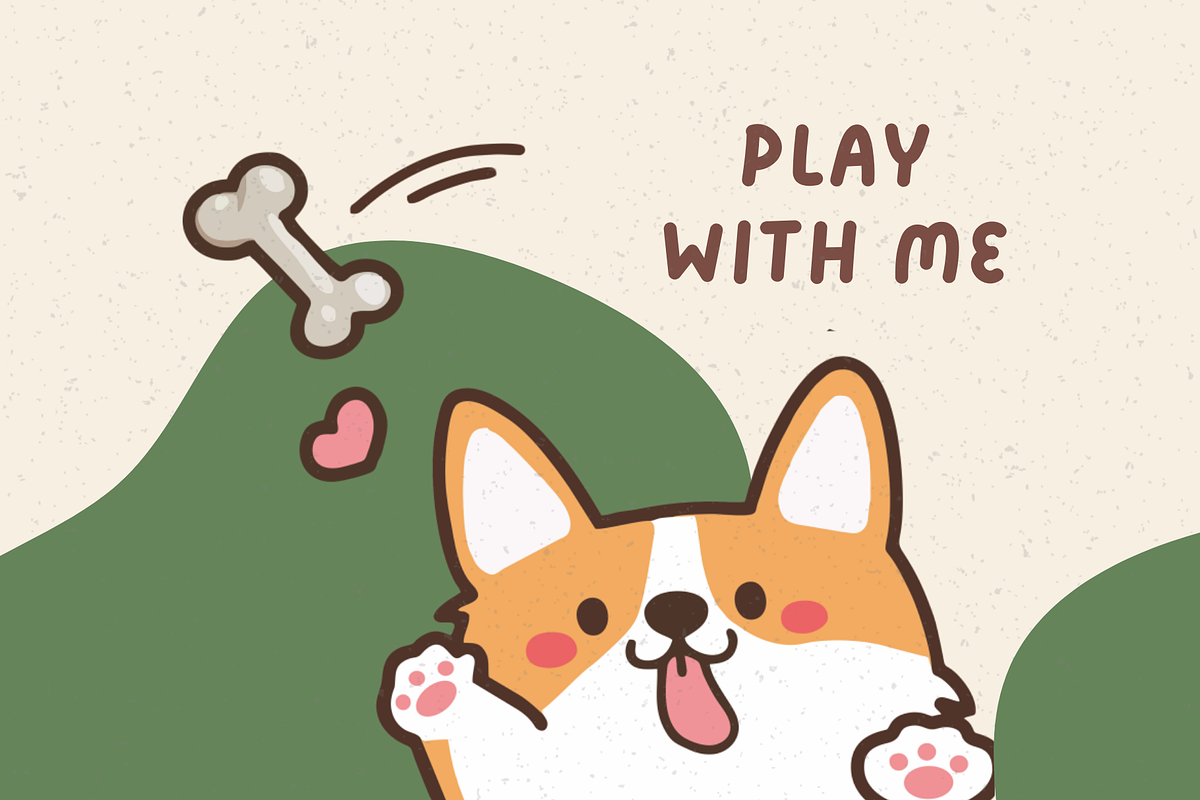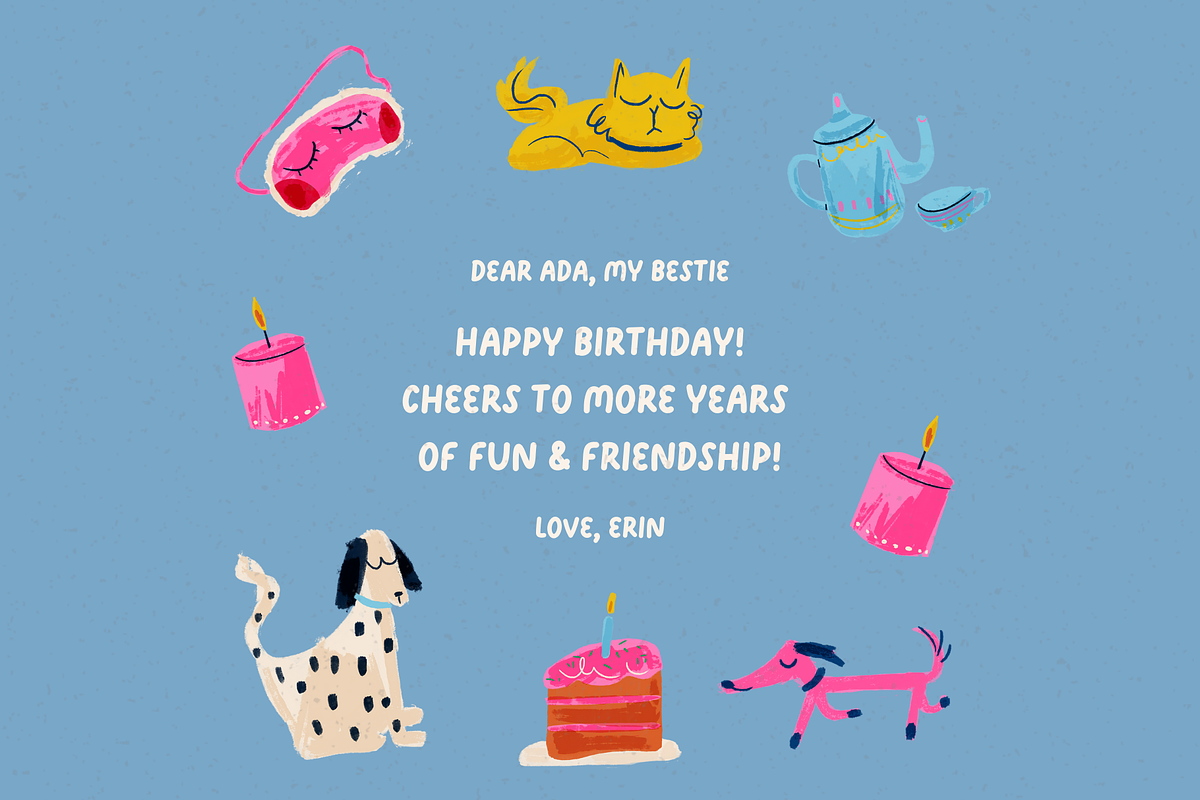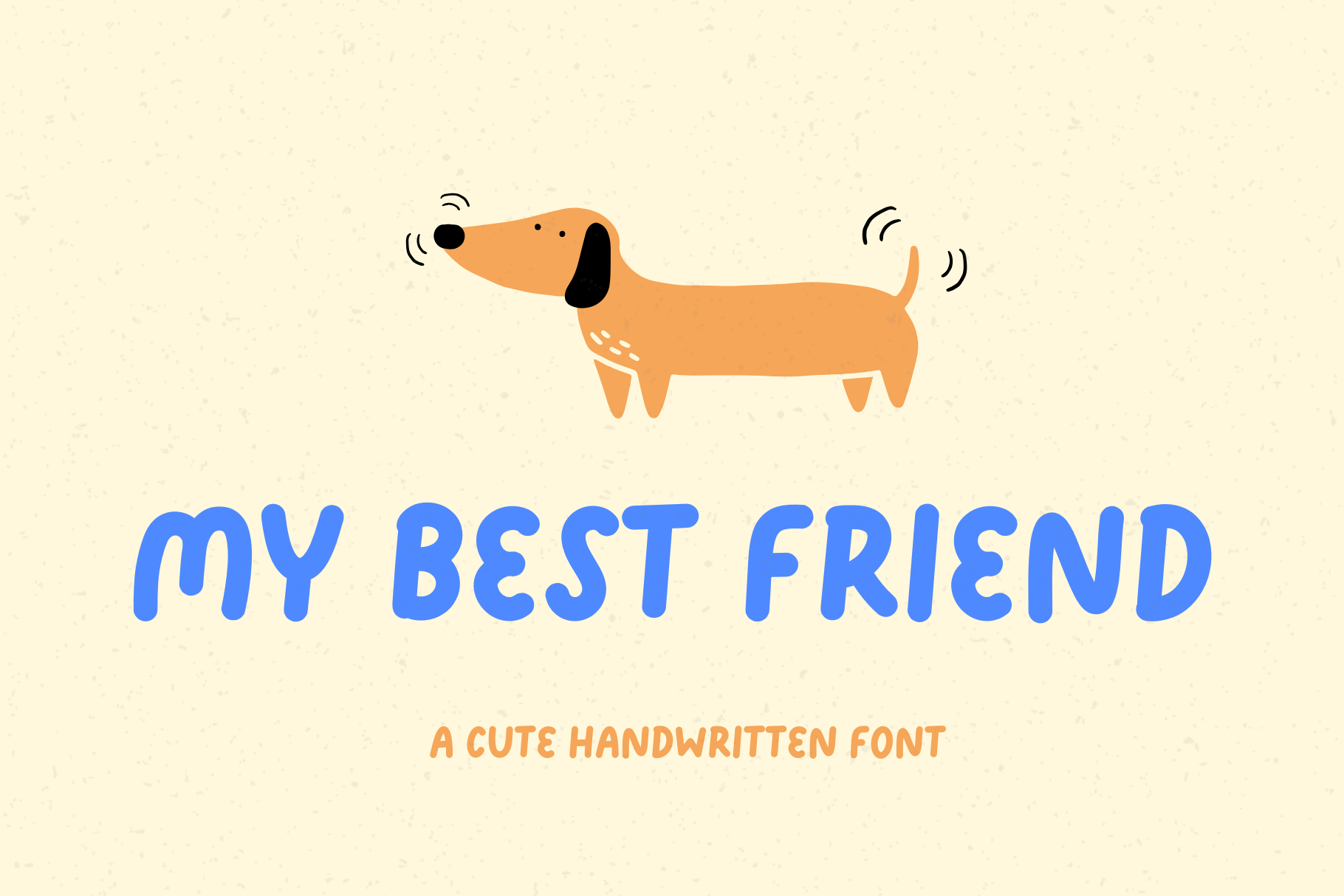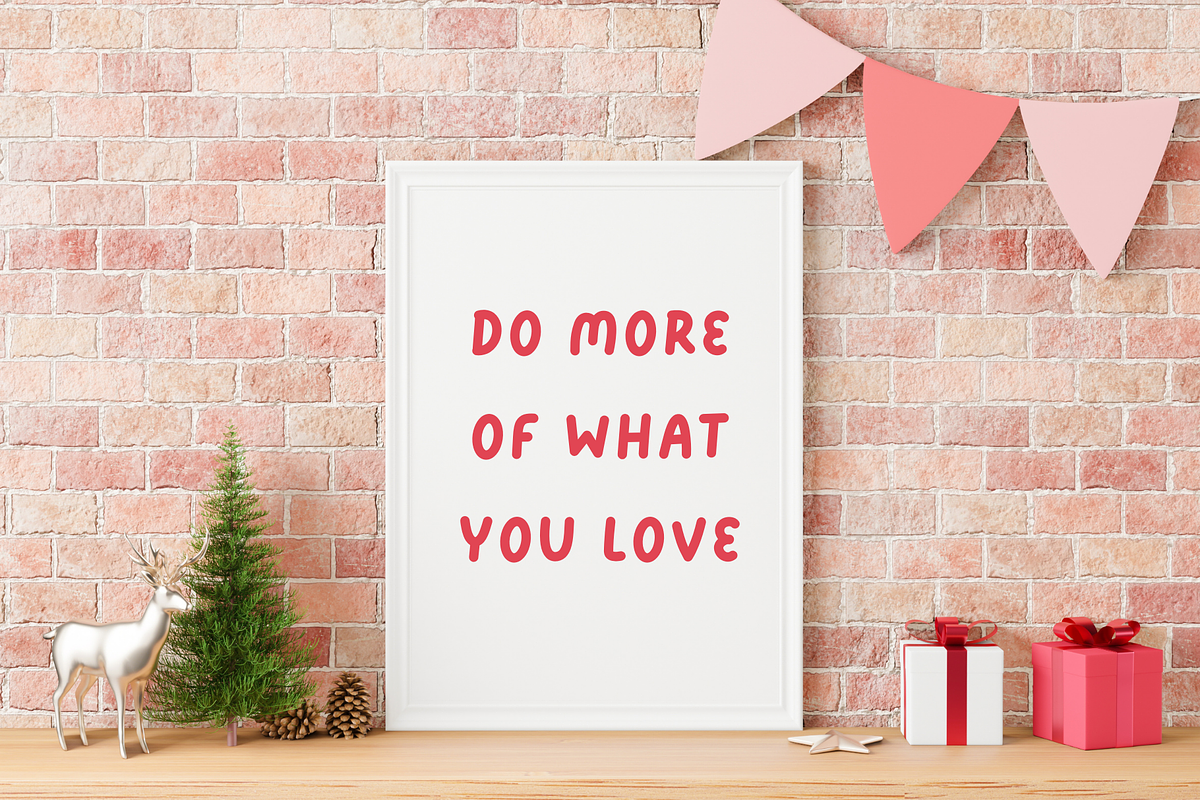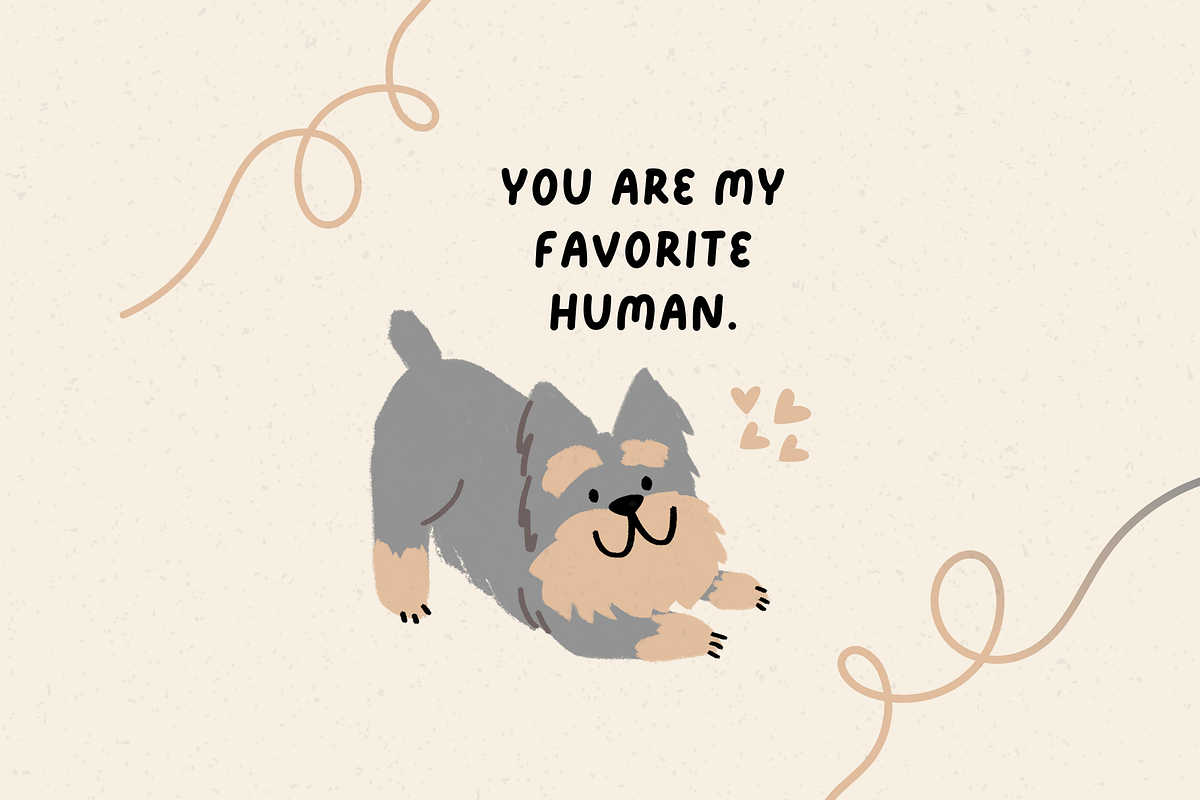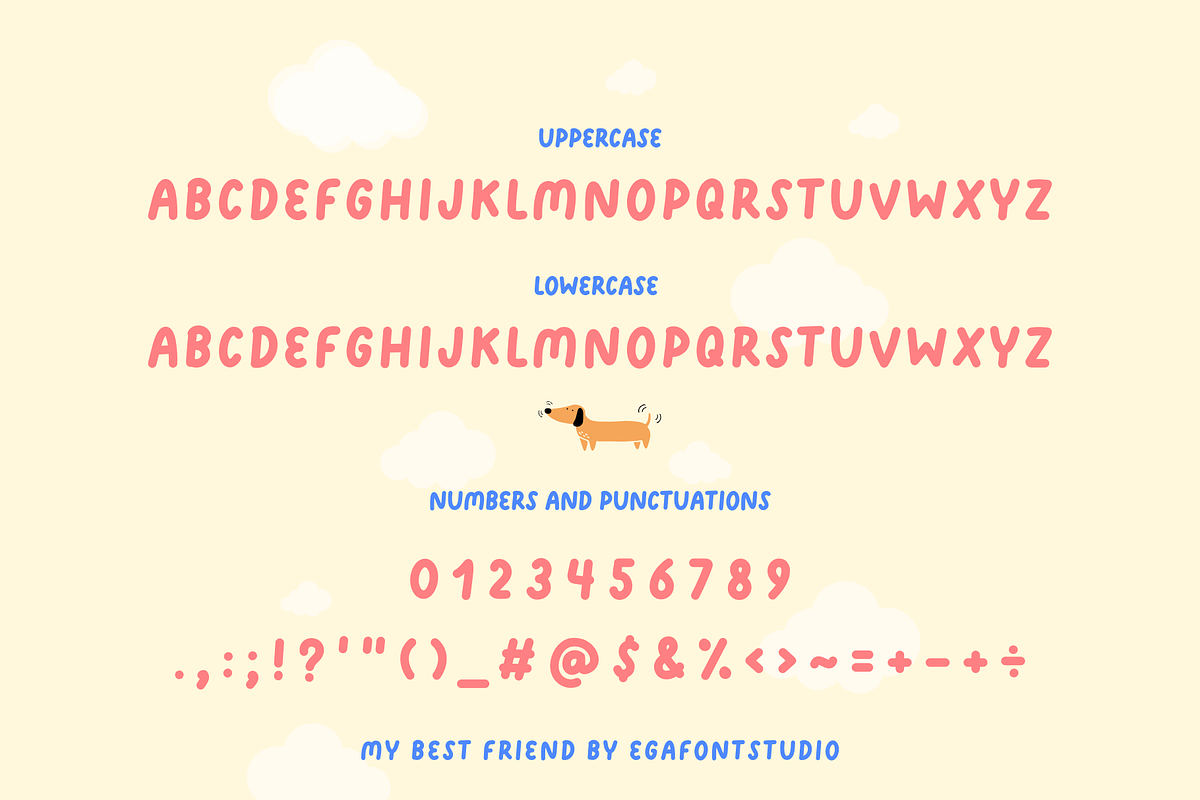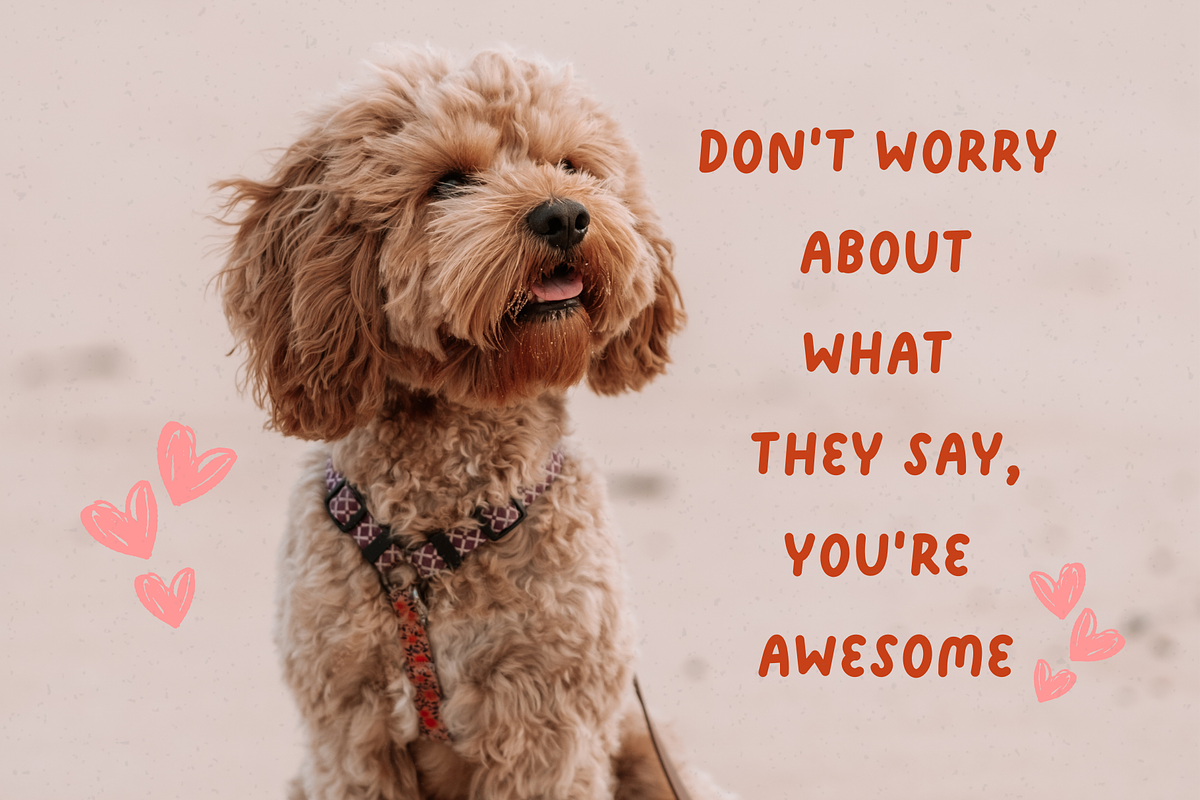
My Best Friend Cute Handwritten Font
My Best Friend | A Cute Handwritten Font
Perfect for adding a charming handwritten feel to any design. With its smooth and clean lines, this font is highly versatile, suitable for a wide range of applications including logos, branding, headlines, posters, invitations, and more.